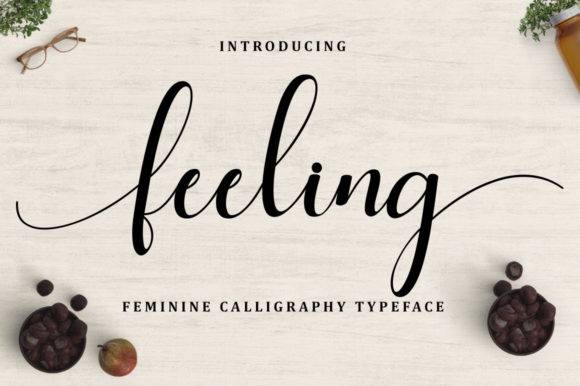
Feeling Font for Crafting, Logos and Print Projects
The Feeling Font is a modern and stylish typeface designed for creative versatility across crafting, branding, and print design. With expressive strokes and a clean layout, it adapts seamlessly to vinyl projects, printed materials, and digital artwork.
This font empowers crafters and designers with a high-quality tool for everything from logos to greeting cards to DIY decor.
- Cricut and Silhouette users
- Branding and logo designers
- DIYers creating wall art or apparel
- Printable and digital template creators
- Small businesses producing handmade goods
- Vinyl decals and iron-on transfers
- Business logos and social graphics
- Event signage and invitations
- Printable wall quotes and cards
- Merchandise labels and product packaging
- Clean, modern lines with expressive personality
- Perfect for branding, signage, and craft use
- Supports both physical and digital design workflows
Q: Will this font look good on logos?
A: Yes, the expressive yet readable style makes it ideal for brand names and identity graphics.
Q: Does it support uppercase and lowercase letters?
A: Yes, the font includes full upper- and lowercase characters, along with punctuation and symbols.
| Style | Modern, expressive, clean | Handwritten script | Bold, cut-out style |
| Best Use | Crafts, logos, print | Invitations, branding | Product labeling, posters |